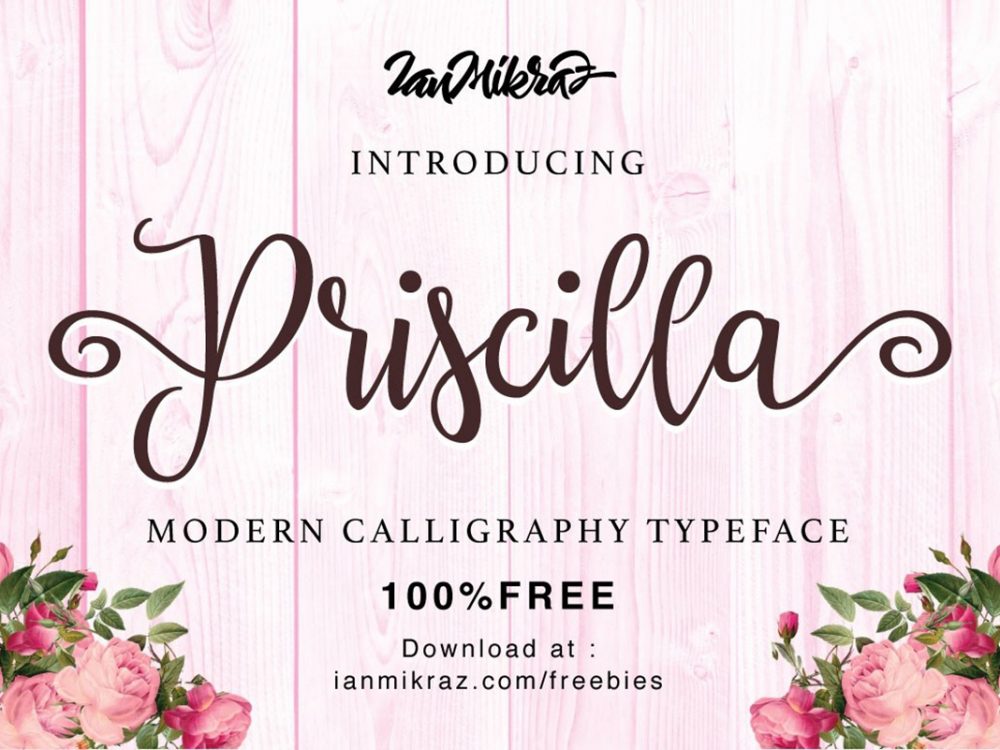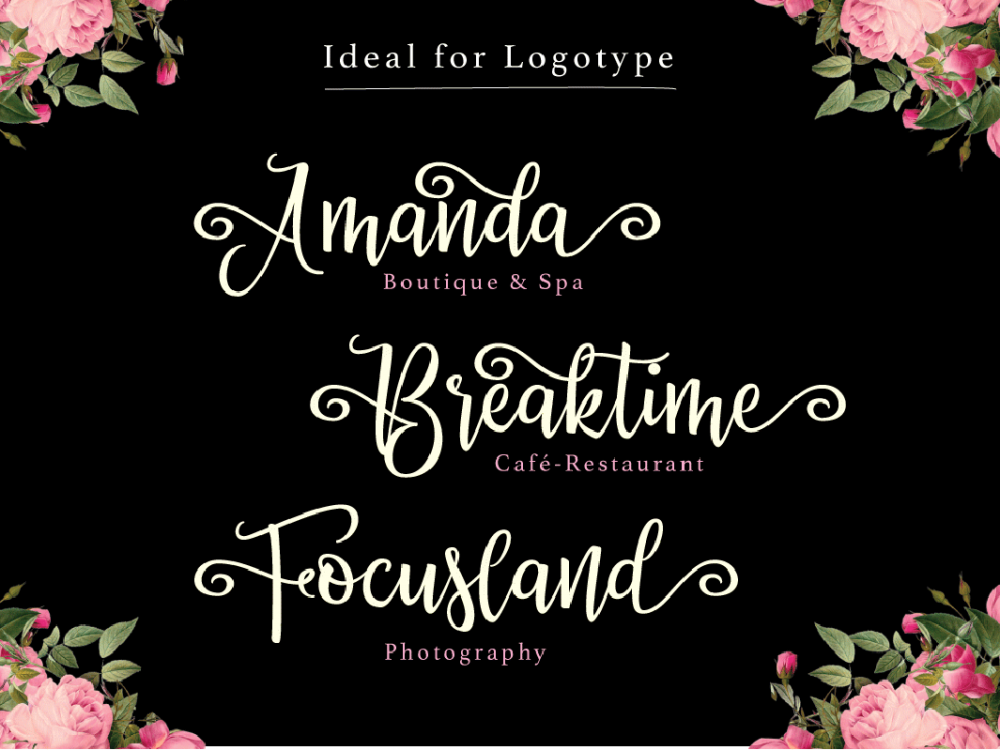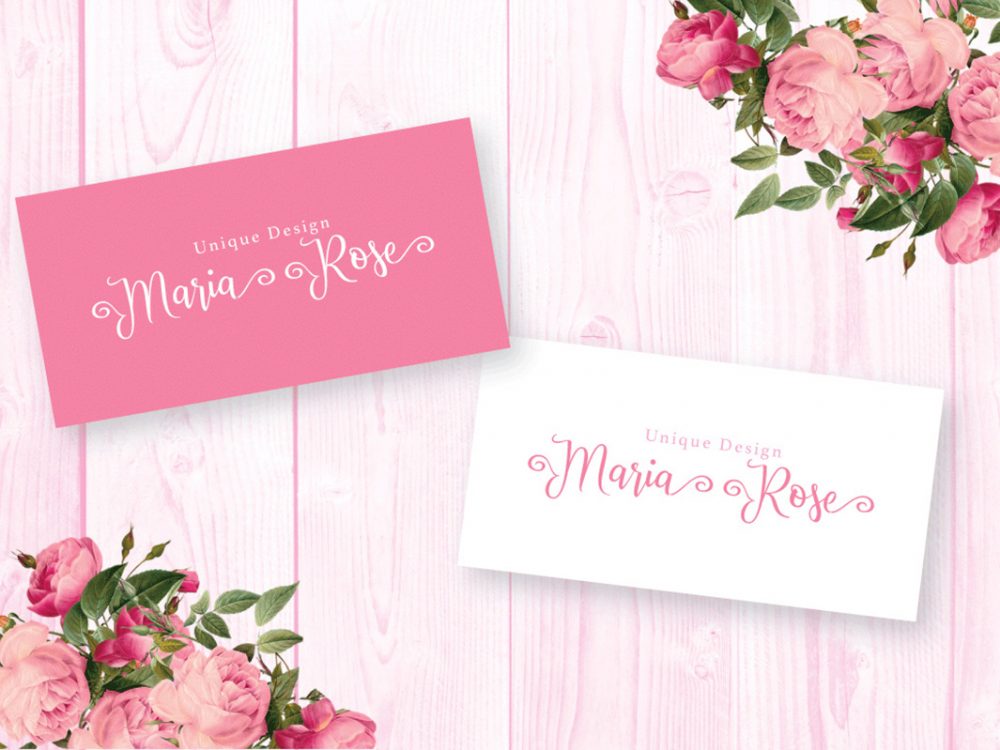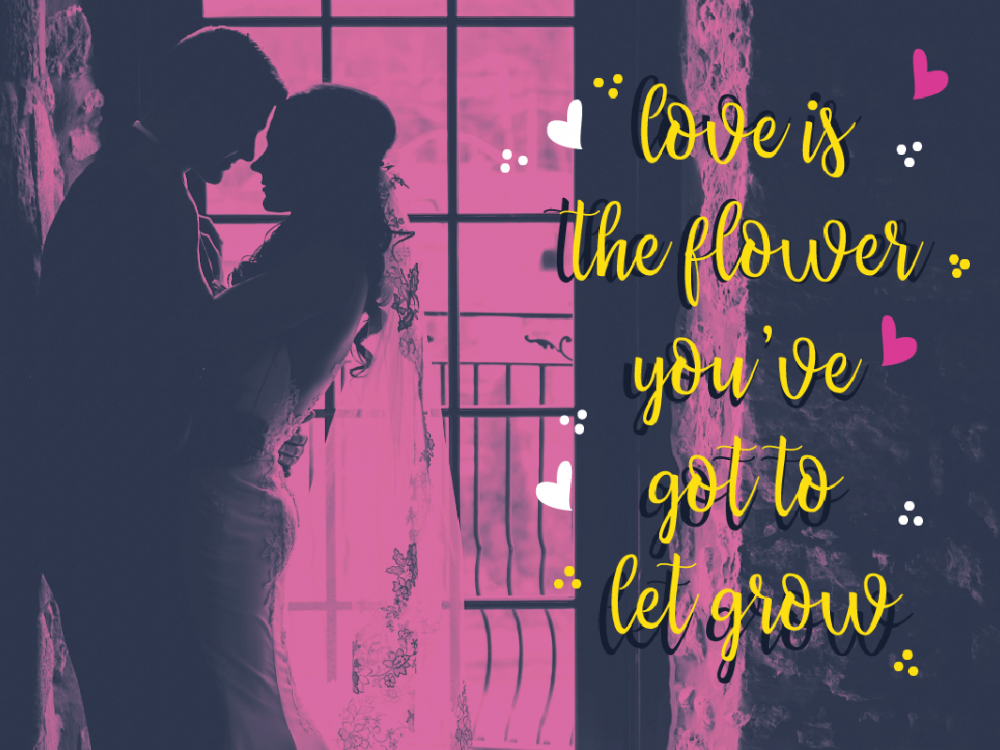
Priscilla Script Free Typeface
Priscilla Script Free Typeface is a stylish, beautiful script typeface featuring an elegant handwriting style. This font is very suitable for creating various design projects that require a handwritten font. These can be greeting cards, wedding invitations, posters, prints, and more.